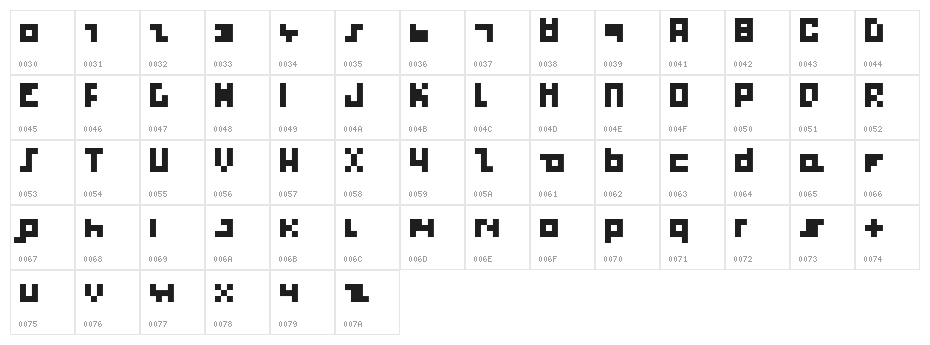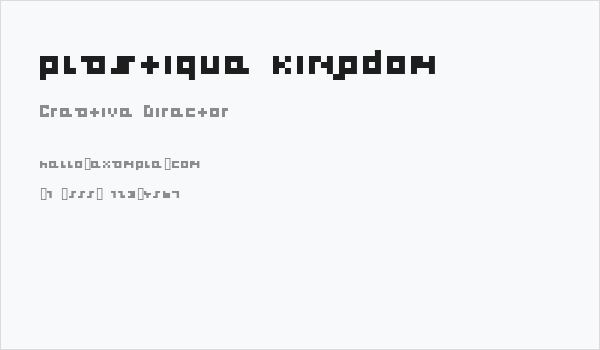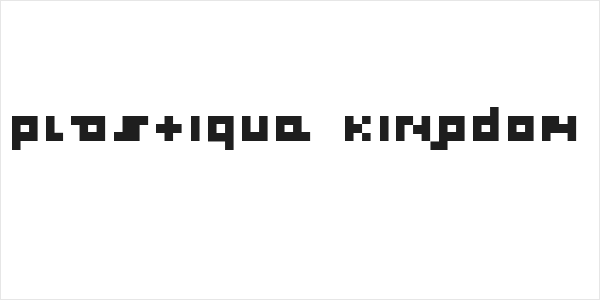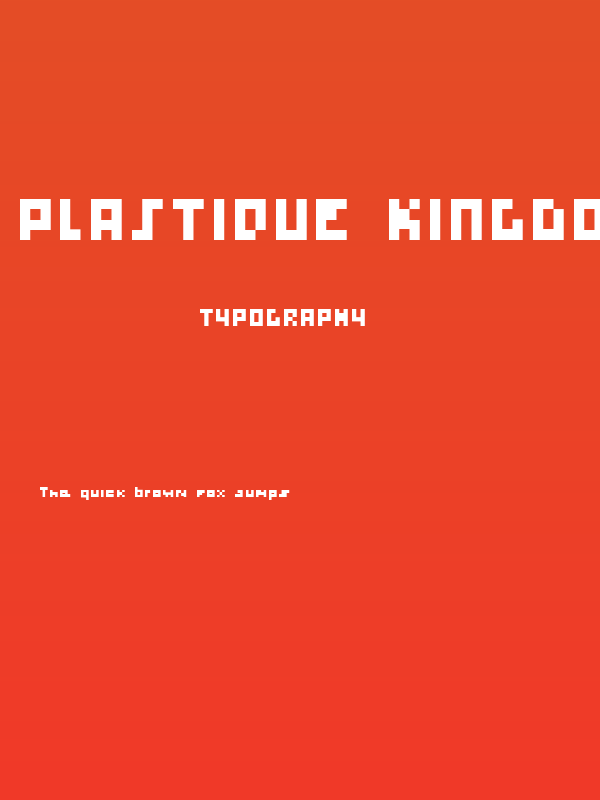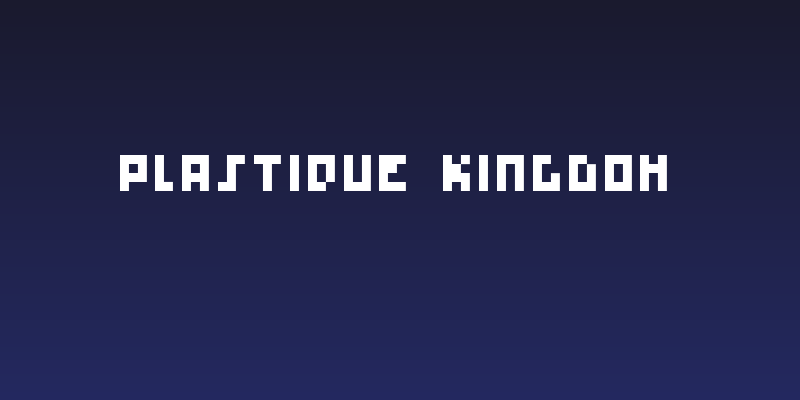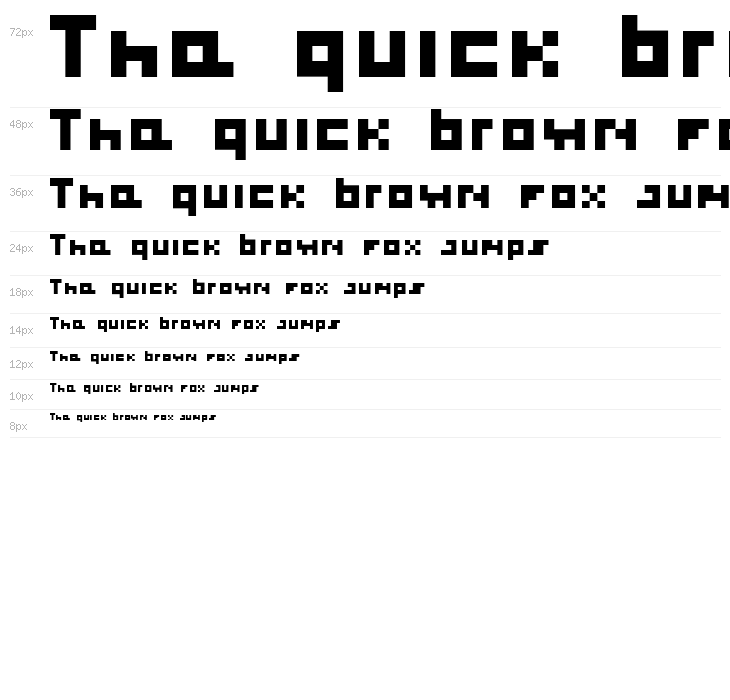
plastique kingdom Font
plastique kingdom Description
This font features a bold, geometric style with a blocky and pixelated appearance. Each character is constructed with sharp, angular edges and uniform stroke widths, creating a cohesive and modern digital aesthetic. The uppercase and lowercase letters maintain a consistent height, contributing to a monospaced feel, while the numerals and special characters are designed to match this structured look. The font's design is reminiscent of early digital or arcade game typography, making it ideal for projects that require a retro or tech-inspired theme. Its simplicity and clarity ensure readability, even at smaller sizes, while the boldness of the characters makes it stand out in larger displays.
| Overall Style | Modern, Retro |
| Use Case | Headlines, Logos, Digital Art |
| Proposed Projects | Ideal for retro-themed designs, tech-related branding, video game graphics, and digital art projects. |